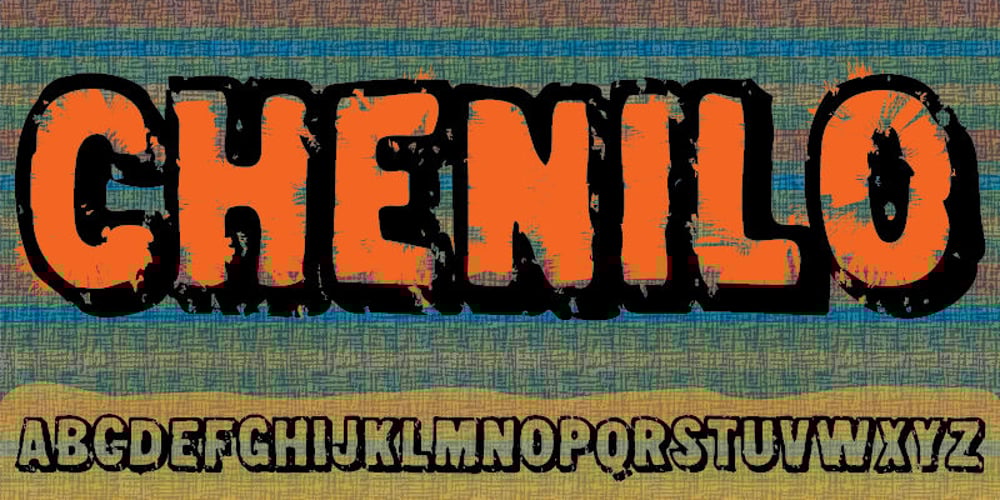
Chenilo Font Family was designed by Jakob Fischer and published by PizzaDude.dk. Chenilo contains 1 styles and family package options. A grunge font that comes with different upper- and lowercase, alternate letters and ligatures for both double numbers and double letters – and on top of that, unique accented characters! You will need to use OpenType supporting applications to use the autoligatures.